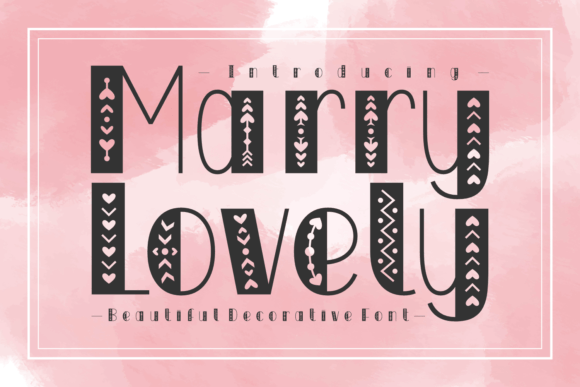
Unleash the love and cuteness in your typography with Marry Lovely Font, an enchanting decorative font from Creative Fabrica Fonts. This delightful font is crafted with little heart decorations, adding a touch of sweetness to your designs.
Marry Lovely is perfect for adding a personal and charming touch to your creative projects. Use it for invitations, greeting cards, posters, flyers, and any other project that calls for a touch of love. Its versatility makes it suitable for both personal and commercial use, so you can spread the love in all your designs.
With its playful and eye-catching style, Marry Lovely Font is sure to make your designs stand out. Its unique heart decorations will add a touch of whimsy and charm, whether you're creating digital art, printable designs, or physical products.